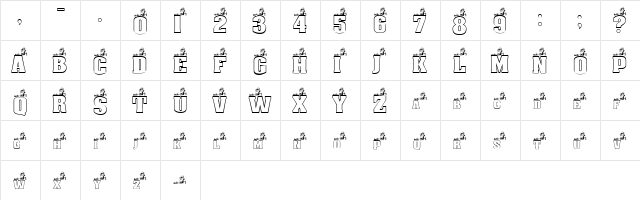
pf_aachen_telegraph Regular
pf_aachen_telegraph is a composed and adaptable typeface that performs quietly and consistently across a wide range of design contexts.